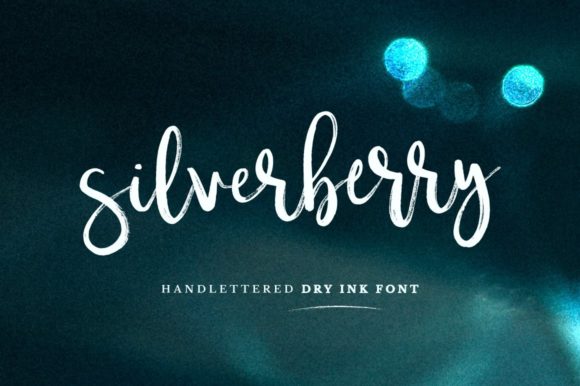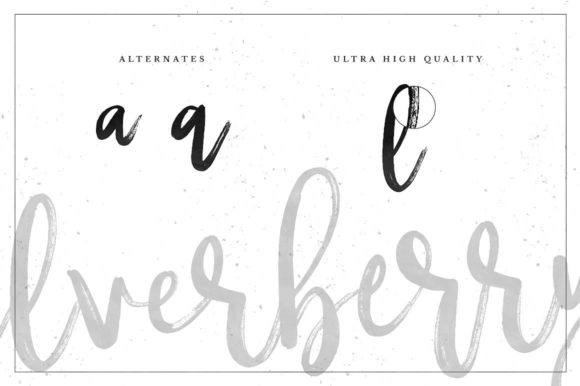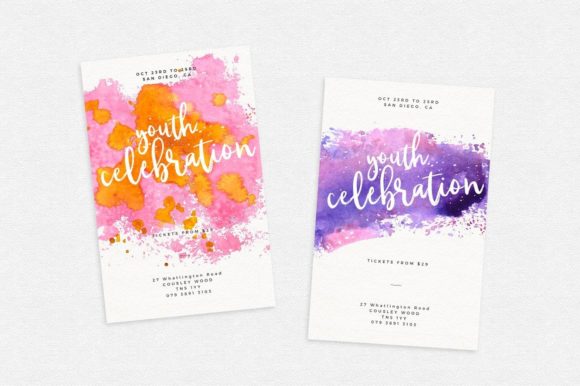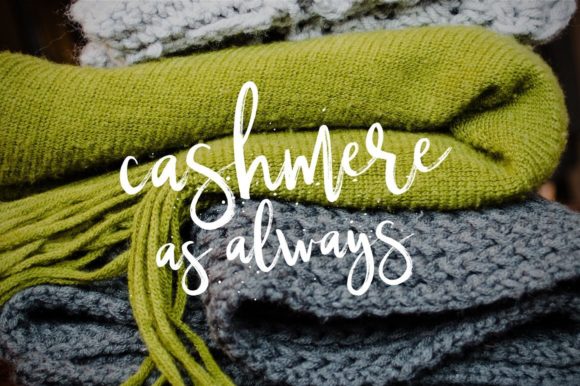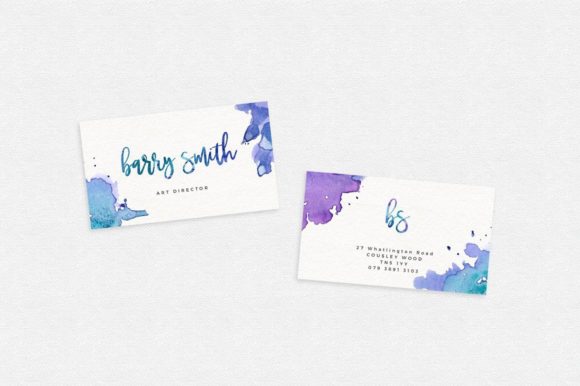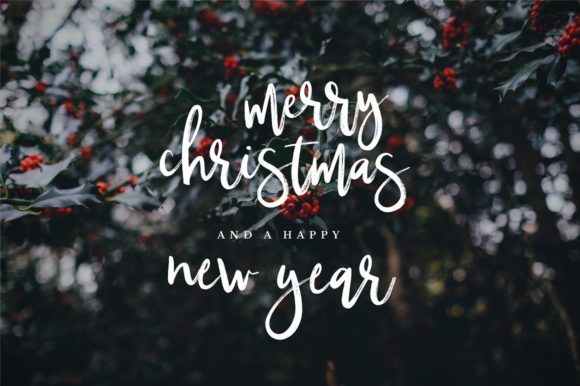
HomeScript FontsSilverberry Font Script Fonts Silverberry Font FacebookXPinterestWhatsApp Silverberry Font Poster 2 Silverberry Font Poster 3 Silverberry Font Poster 4 Silverberry Font Poster 5 Silverberry Font Poster 6 About Silverberry Font Silverberry is a classy and sweet script font, delivering smooth and charming curves and great legibility. DOWNLOAD NOW People also explored Somebody Font Monogram U | Monofont Caps U Font Manggom Font Higuey Matteo Font Magdalen Font Onion Font Withered Leaves Font Nathalie Font Bigshot Jitter Font 327 0 TagsSilverberry Font Previous articleImperfectly FontNext articleSouthfield Font LEAVE A REPLY Cancel reply Comment: Please enter your comment! Name:* Please enter your name here Email:* You have entered an incorrect email address! Please enter your email address here Website: Save my name, email, and website in this browser for the next time I comment. Personal Use Free Scarlove Personal Use Free Read more about this font Street Cred Personal Use Free Read more about this font Blast Personal Use Free Read more about this font Kaylafiz Personal Use Free Read more about this font BLOG 5 Fonts That Will Dominate Design Trends in 2026 5 Fonts for 2026 That Will Dominate Design Trends Typography plays a critical role in visual communication, and as we look ahead to 2026, it’s... Where to Buy American Fonts Online in 2024 The 10 Best Handwriting Fonts to Add Personality to Your Designs Free vs Paid Fonts: Why Investing in Premium Fonts Is Worth It